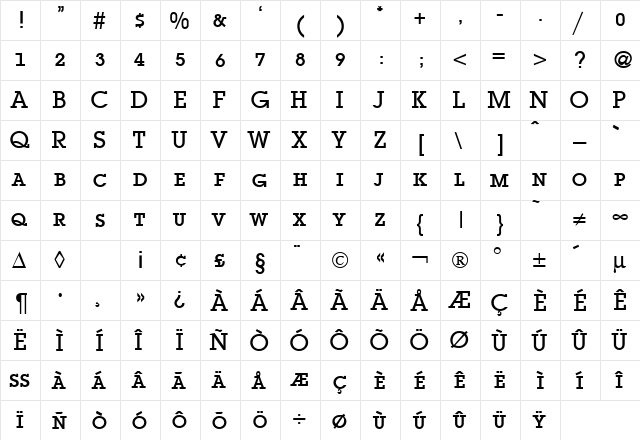
LubbersSmc Bold
Design Context for LubbersSmc Typeface
LubbersSmc offers clean, dependable letterforms without strong stylistic allegiance, making it a practical choice for designers who need flexibility. Its bold stroke weight gives it real presence on the page.